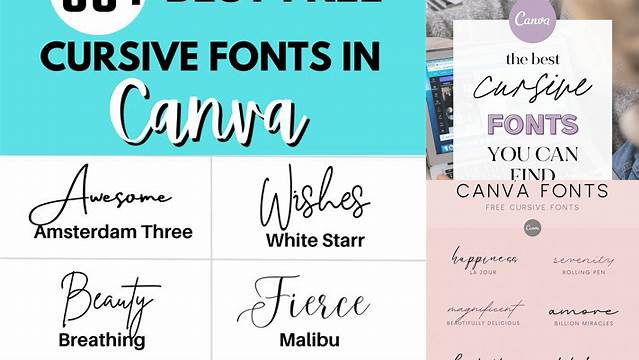
Free Canva Cursive Fonts: Your Ultimate Guide
Hey everyone! Are you looking to spice up your Canva designs with some elegant cursive fonts? You're in the right place! Canva is a fantastic platform, and when you combine it with the right fonts, you can create stunning visuals. This guide is all about free Canva cursive fonts and how to use them effectively. We'll dive into finding them, using them, and making sure your designs truly shine. So, grab a coffee, and let's get started!
H2: Unveiling the World of Free Cursive Fonts in Canva
Alright, folks, let's kick things off by exploring the vast universe of free cursive fonts available within Canva. Canva's font library is a treasure trove, but finding the perfect cursive font can feel like searching for a needle in a haystack. Don't worry, I'm here to guide you through the process. First things first, open up Canva and start a new design. It could be anything – a social media post, a presentation, or even a poster. Once you're in the editor, click on the text tool. You'll see a default text box appear. Now, click on the font dropdown menu. This is where the magic happens! You'll see a list of fonts, and you can scroll through them to get a feel for what's available. But let's be efficient, shall we? In the font search bar, type in keywords like "cursive," "script," or "handwritten." Canva will then filter the fonts, showing you options that match your search. Look for fonts that have a little crown icon next to them; these are Canva Pro fonts, meaning you need a paid subscription to use them. For this guide, we are focusing on the free cursive fonts. Focus on the ones without the crown – these are the gems we're after! As you scroll through the results, you'll encounter a variety of styles. Some fonts are more formal, with elegant flourishes, while others have a more relaxed, casual vibe. Consider the overall tone of your design when selecting a font. Is it for a wedding invitation? Go for something graceful. Is it for a fun, informal party? Choose a font that's playful and quirky. Make sure you're checking the license, even though they are free, to ensure they align with your project, especially for commercial use. Take your time and explore! The beauty of Canva is that you can experiment without any commitment. Try out different fonts and see how they look with your other design elements. You might find a font you never knew existed, which perfectly fits your vision. The more you explore, the better you'll become at identifying the perfect free cursive fonts to elevate your designs.
H3: How to Effectively Search for Cursive Fonts in Canva
Let's talk about some clever search strategies to find those elusive free cursive fonts in Canva. The standard "cursive" search is a good starting point, but we can be even more strategic. Try using more specific keywords to refine your search. For example, instead of just typing "cursive," try "elegant cursive," "modern script," or "handwritten fonts." These more descriptive terms can help you uncover hidden gems that might not appear in a generic search. Another trick is to use the font filters. Canva allows you to filter fonts based on various characteristics, such as style, thickness, and even the presence of serifs. By using these filters, you can narrow down your search and find fonts that perfectly match your desired aesthetic. Don't be afraid to experiment with different combinations of keywords and filters. The more you experiment, the better you'll become at uncovering the perfect fonts for your projects. You can also explore the font categories. Canva organizes fonts into different categories, such as "serif," "sans serif," "display," and "handwriting." The "handwriting" category is a particularly good place to start your search for cursive fonts. Within this category, you'll find a variety of fonts that mimic the look of handwritten text. Keep in mind that the font library is constantly updated. New fonts are added regularly, so it's a good idea to check back often to see what's new. You might discover a font that perfectly suits your needs that you didn't know existed. As you explore different fonts, pay attention to the overall style and character of each one. Some fonts are more formal, while others are more casual. Some fonts are bold and eye-catching, while others are delicate and subtle. Consider the purpose of your design and choose a font that complements your message. For example, if you're designing a logo for a luxury brand, you might want to choose an elegant, sophisticated cursive font. On the other hand, if you're designing a social media post for a fun, informal event, you might want to choose a more playful and quirky font. Always remember, the best fonts are the ones that speak to your brand and message.
H2: Choosing the Right Free Canva Cursive Fonts for Your Project
Choosing the right free Canva cursive fonts is a crucial step to any design project. It's not just about finding a font that looks pretty; it's about finding a font that aligns with the overall tone and message of your design. When selecting a font, consider your target audience. Who are you trying to reach? What are their preferences? A font that resonates with a younger audience might not be appropriate for an older audience. Once you've identified your target audience, consider the purpose of your design. Are you creating a logo, a website, a social media post, or a presentation? Each of these applications has different requirements. A logo might require a font that is both memorable and versatile. A website might require a font that is easy to read on screen. A social media post might require a font that is eye-catching and shareable. Think about the overall style of your design. Is it formal or informal? Is it modern or vintage? Is it bold or subtle? Choose a font that complements the style of your design. If you're going for a modern look, consider a clean, minimalist cursive font. If you're going for a vintage look, consider a font that evokes a sense of nostalgia. When you have chosen your font, ensure that the font is readable. The readability of the font is one of the most important factors. Make sure the font is easy to read, even at a small size. Some cursive fonts can be difficult to read, especially if they have elaborate flourishes or connections. Choose a font that is clear and legible. Ensure that your font pairs well with other fonts. Don't be afraid to combine cursive fonts with other font styles, such as sans-serif fonts or serif fonts. When you choose a font combination, make sure the fonts complement each other. Avoid combining fonts that clash or compete for attention. Test your chosen font in the actual design. Before you commit to a font, test it in your design. See how it looks with the other design elements, such as images, colors, and layouts. Make sure the font is the right size and weight for your design. Take your time to explore and experiment with different fonts. By choosing the right free Canva cursive fonts, you can create designs that are both visually appealing and effective.
H3: Free Cursive Fonts Best Suited for Logos and Branding
Let's talk about the best free Canva cursive fonts for logos and branding. Logos are the face of your brand, so the font you choose is extremely important. It has to be memorable, versatile, and reflective of your brand's personality. Here are a few font suggestions for logos and branding, but remember that the best choice is always the one that best represents your brand. Start with searching for some of the popular fonts such as the Dancing Script, which is a lovely, elegant font, and is a popular choice for logos. Then you can select the Great Vibes font, which is a very elegant, romantic font and works well for brands that want to convey sophistication. Make sure to select a font with a unique personality. The font should stand out from the crowd and be memorable. If you're designing a logo, make sure the font works well at different sizes. It should be readable, even when it's small. Make sure the font is versatile. Choose a font that can be used in a variety of applications, from websites to social media posts to business cards. Now comes the testing part. Experiment with different font combinations to see what works best for your brand. Also, keep in mind that you can always customize your font. Play with the letter spacing, size, and other design elements to create a unique look. Consider the overall brand personality when selecting a font. If your brand is playful and fun, choose a font that reflects that. If your brand is sophisticated and elegant, choose a font that conveys that impression. Check the licenses! Even though they are free Canva cursive fonts, ensure they are permissible for commercial use. If you plan to use the logo for commercial purposes, make sure the font allows for it. Ensure that the font complements the other elements of your brand, such as your color palette and imagery. Choose a font that works well with your overall design aesthetic. If in doubt, seek professional advice. Consult with a graphic designer who can help you choose the perfect font for your brand.
H2: How to Integrate Cursive Fonts in Your Canva Designs
Okay, so you've found some fantastic free Canva cursive fonts! Now, let's talk about how to actually use them in your designs. The first step is to add text to your design. In the Canva editor, click on the "Text" tool. This will add a text box to your design. You can then customize the text by changing the font, size, color, and other properties. To change the font, click on the font dropdown menu and select your chosen free cursive font. You can adjust the font size using the size control, which is located near the font dropdown. Choose a font size that is appropriate for your design. Make sure the text is easy to read. If you're using a cursive font, it's especially important to ensure the text is legible. The color is essential as the font must complement the overall design. You can customize the color of your text using the color picker. Choose a color that complements your other design elements, like images. Adjust the spacing to ensure the text doesn't appear cramped or too loose. You can adjust the letter spacing, which is the space between individual letters, and the line spacing, which is the space between lines of text. If your font has the features, consider using ligatures. Ligatures are special characters that combine two or more letters into a single glyph, which can improve the appearance of your cursive font. Next, consider the placement of the text. The placement of your text is crucial to the overall layout of your design. Make sure the text is balanced with other design elements, such as images and shapes. Don't be afraid to experiment with different text arrangements. Try different alignments, such as left, right, or center alignment. See how it looks and feels! Consider using your font with other font types, like sans-serif or serif fonts. Combining font types can help to create visual interest. Experiment with different font combinations. The key is to have fun with it, and see what feels and looks best!
H3: Making Cursive Fonts Readable and Accessible
Ensuring your cursive fonts are readable and accessible is absolutely key, guys. You can have the most beautiful free Canva cursive fonts, but if people can't read them, your design's effectiveness goes down the drain. Let's break down how to make your cursive text user-friendly. First, let's talk about size. Cursive fonts, especially the more ornate ones, can be tricky. Make sure your text is large enough to read comfortably. A good rule of thumb is to test your design on different devices (phones, tablets, computers) to see how it looks at various sizes. Next up, it's all about the contrast. Ensure there's enough contrast between your text and the background. Dark text on a light background is generally the easiest to read. Light text on a dark background can also work well, but be mindful of the specific font and the background color. Avoid putting text over busy backgrounds. This can make the text difficult to discern. Try to keep the background simple or use a semi-transparent overlay to help your text stand out. Then, consider the style of the font. Some cursive fonts are more legible than others. Fonts with simple, clear letterforms tend to be easier to read than fonts with excessive flourishes or intricate details. When in doubt, choose a simpler cursive font for longer passages of text. Also, pay attention to the kerning, which is the spacing between letters. Some fonts have kerning issues, where letters are either too close together or too far apart. Canva allows you to adjust the kerning manually. A small adjustment can often make a big difference in readability. Ensure that your text is accessible. Use alternative text (alt text) to describe images that contain text. This is particularly important for users with visual impairments who rely on screen readers.
H2: Combining Cursive Fonts with Other Font Styles for the Best Results
Alright, let's get creative and explore how to combine free Canva cursive fonts with other font styles for maximum impact! The secret to success lies in finding the right balance and contrast. First, start by selecting your free Canva cursive font. This is often the focal point of your design, so choose one that you love and that fits your overall theme. Now, select your complementary fonts. You'll typically want to pair a cursive font with a sans-serif or a serif font. Sans-serif fonts are fonts without the small decorative lines (serifs) at the ends of the strokes. Serif fonts are fonts with the decorative lines (serifs) at the ends of the strokes. The most important thing is the contrast! Pair a fancy cursive font with a clean, simple sans-serif font for a balanced look. If your cursive font is more subdued, you might pair it with a more elegant serif font. Now, let's talk about which font to use for headings. Cursive fonts are great for headings, especially if you want to create a sense of elegance or personalization. For subheadings or body text, use a complementary font that is easier to read. This is the best practice! Consider the weight of the font. The weight of your font refers to the thickness of the strokes. A heavier font will draw more attention, while a lighter font will be more subtle. Use the font weight to create visual hierarchy in your design. For example, you might use a bold cursive font for your main heading and a lighter sans-serif font for your body text. Experiment with different combinations and create visual interest. By experimenting with various combinations, you'll find the perfect mix. Also, always ensure that the fonts complement each other. Avoid combining fonts that clash or are too similar. If you're not sure what fonts to pair, try using font pairings websites, like Canva’s own font pairing feature. There are many online resources that offer suggestions for font pairings. Use these resources as inspiration. Always remember, the goal is to create a design that is both visually appealing and easy to read. By carefully selecting and combining fonts, you can achieve a professional and polished look.
H3: The Best Font Pairings with Cursive Fonts for Canva
Let's explore some of the best font pairings to create visually appealing designs. We'll focus on how to combine free Canva cursive fonts with other fonts for maximum impact. First, let's consider the Dancing Script font. Dancing Script is a beautiful and elegant free Canva cursive font. To complement this font, use a clean and modern sans-serif font. You can try Open Sans, Lato, or Montserrat. Then you can try pairing Great Vibes with a font. Great Vibes is another excellent free Canva cursive font with a romantic and sophisticated feel. Pair this font with a clean and legible sans-serif font, such as Open Sans or Raleway, to add a touch of elegance. You can also use a serif font for a more classic feel. Now we'll consider the combination of Allura with a font. Allura is a lovely and charming free Canva cursive font. Pair it with a simple and clean sans-serif font like Open Sans or Roboto. This pairing can work for invitations or quotes. Remember to maintain a balance and contrast when pairing fonts. The cursive font should be the focal point, and the other fonts should be used for supporting text or body text. Keep it simple! The best font pairings are often the most simple. Avoid combining too many fonts in one design. Stick to two or three fonts at most. Then, focus on the personality. Choose fonts that match the overall style and tone of your design. If you want a classic and elegant look, consider pairing a traditional cursive font with a serif font. If you want a modern and minimalist look, consider pairing a clean cursive font with a sans-serif font. And lastly, always test your font pairings. See how your font combinations look in practice. Use the fonts in a sample design and check the appearance.